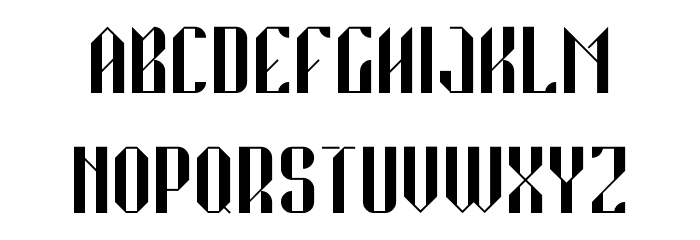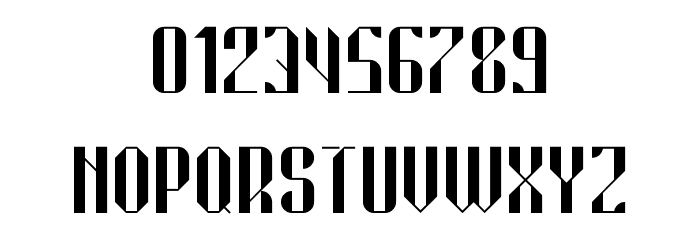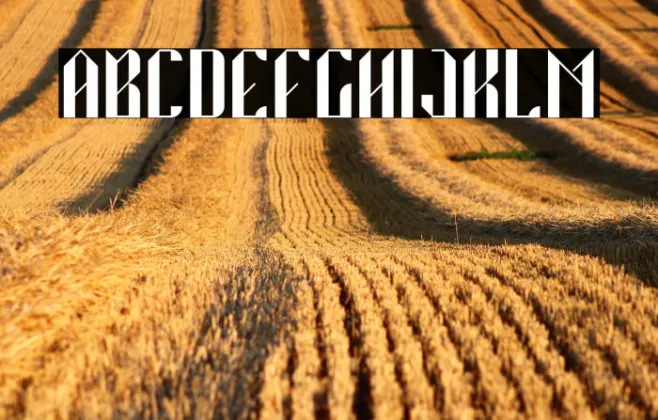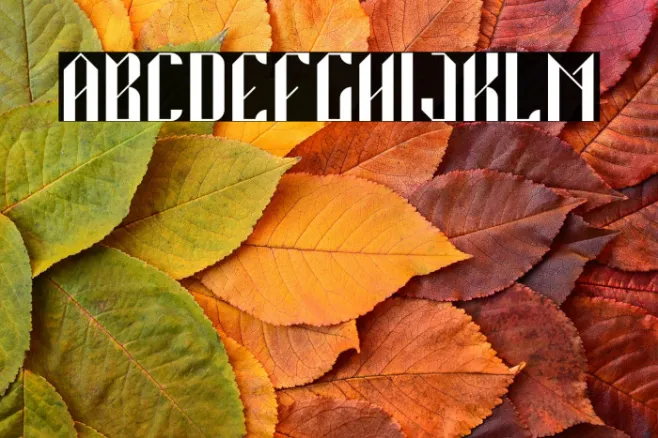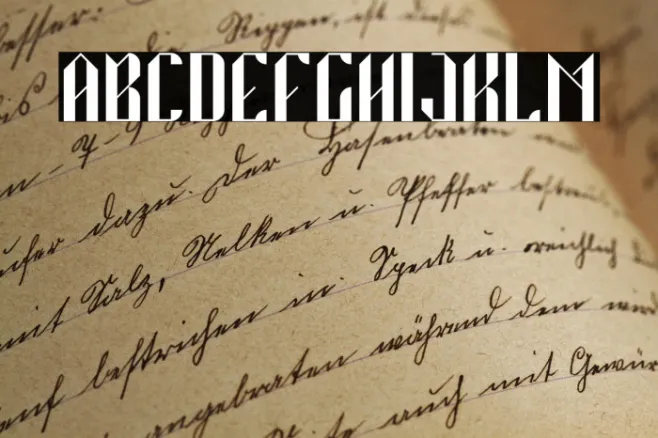
Garda Font
This font features a bold, geometric design with sharp angles and a modern aesthetic. The characters are constructed with a combination of thick and thin strokes, creating a striking contrast that enhances readability while maintaining a unique style. The uppercase letters are particularly distinctive, with angular cuts and a futuristic feel. The numbers and special characters follow the same design principles, ensuring a cohesive look across all elements. This font is ideal for projects that require a bold statement, such as branding, advertising, or editorial design.
A bold, geometric font with sharp angles and high contrast.
- Font: Garda
- Proposed Projects: Ideal for branding, advertising, editorial design, and any project requiring a modern, bold statement.